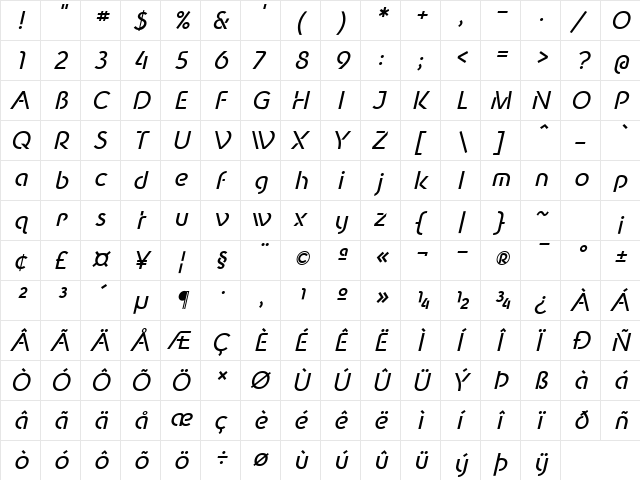
New Shape Oblique
Design Context for New Shape Typeface
New Shape is a composed and adaptable typeface that performs quietly and consistently across a wide range of design contexts. The dynamic lean of this cut emphasises speed and emphasis in any layout.
Pro Tip: Try New Shape for annotation and caption copy alongside an upright companion — the contrast in angle creates a dynamic but ordered typographic system.